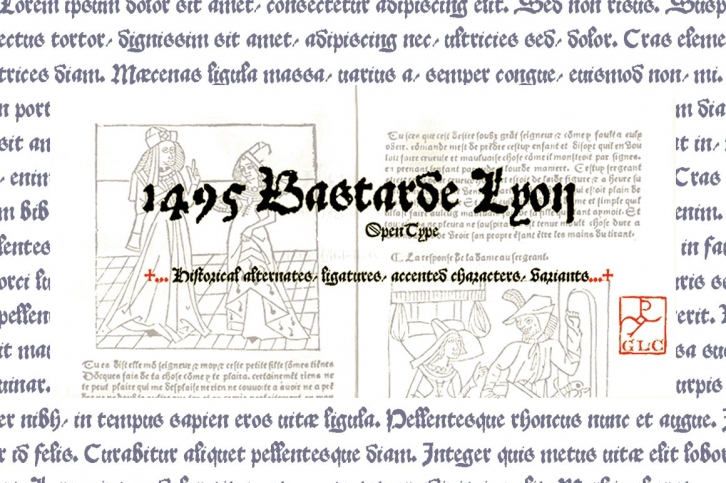
Font designed from this who was used by an unknown printer in Lyon (France) to print in 1495 the “Conte de Griseldis ” (Griseldis' tale), from Petrarque, inspired by Boccace. The original font has a relatively small number of special characters and ligature, for the time. This font includes “long s”, naturally, as typically medieval but numerous letters - as accented ones - were added for this version. This font works at a small size like 9, remaining clear and easy to read.